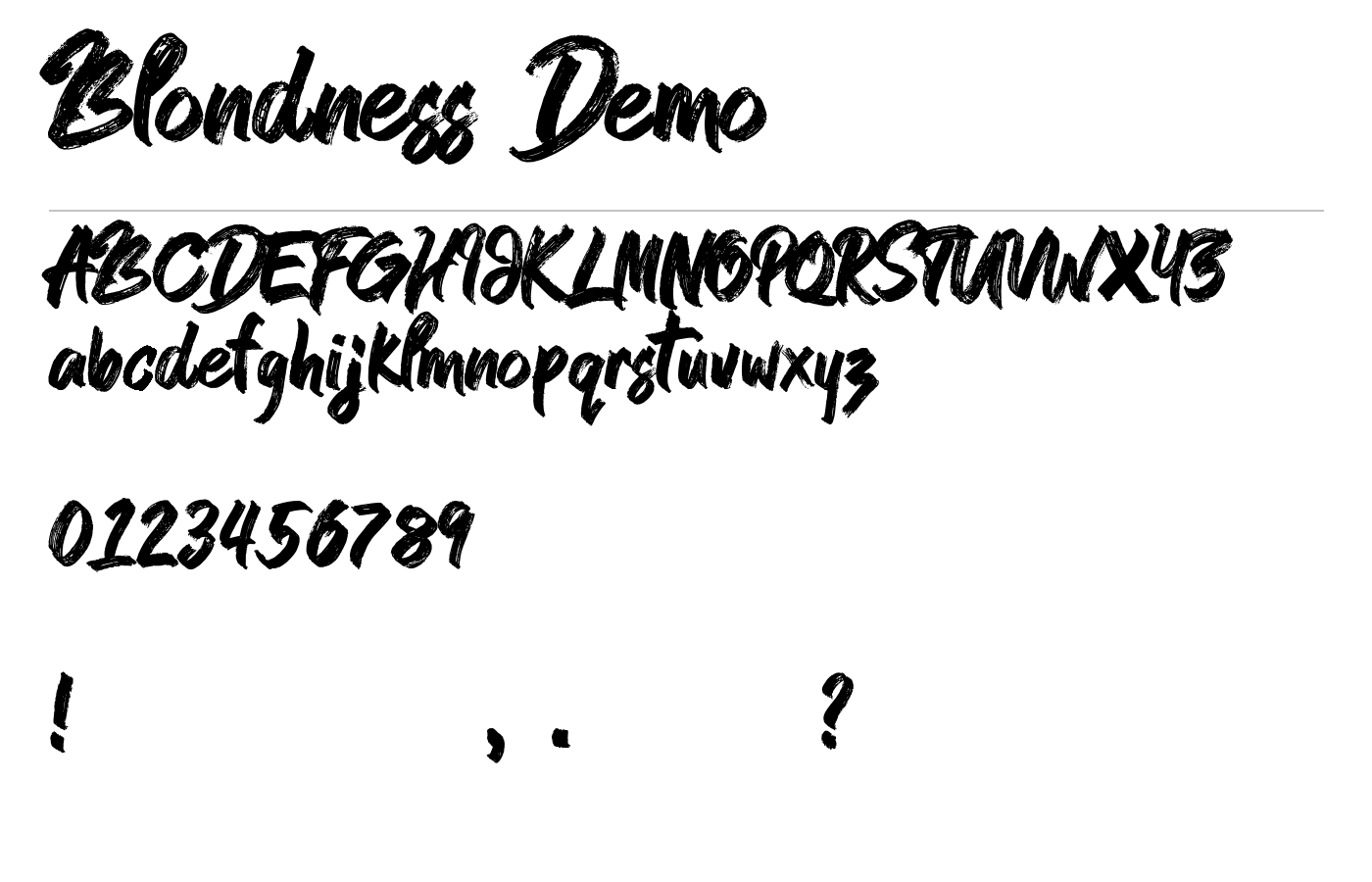
Blondness Demo is a bold, energetic brush script font that captures a hand-painted, textured look with lively strokes and a slightly condensed form. Its casual, artistic style makes it perfect for creative projects, logos, posters, and packaging where a dynamic, handcrafted feel is desired. With its strong personality and rough edges, this font adds an authentic and expressive touch to any design.
Blondness Demo Font
About Blondness Demo Font
| Font family | Blondness Demo Font |
| Designer | Knackpack Studio |